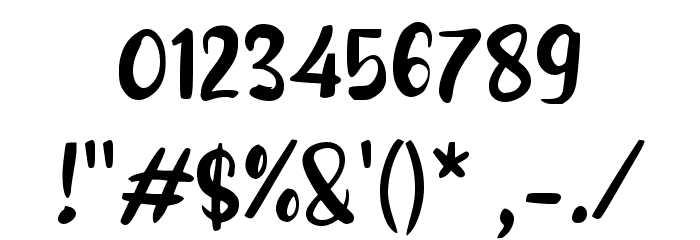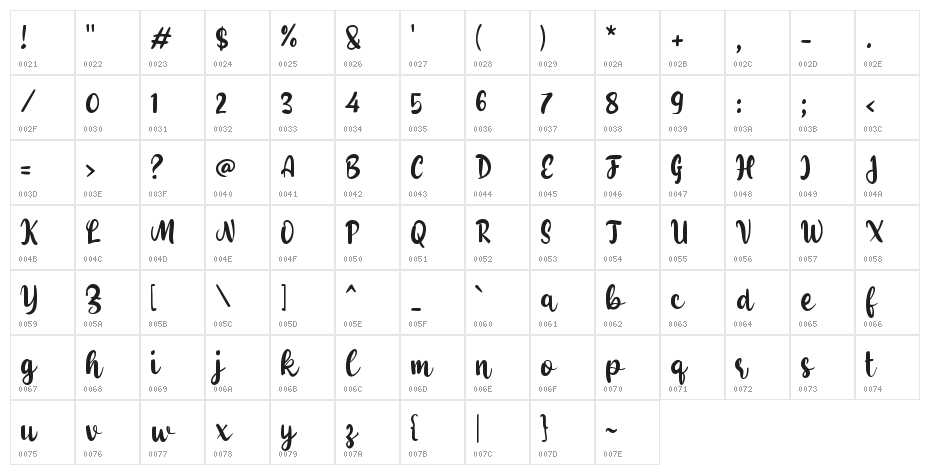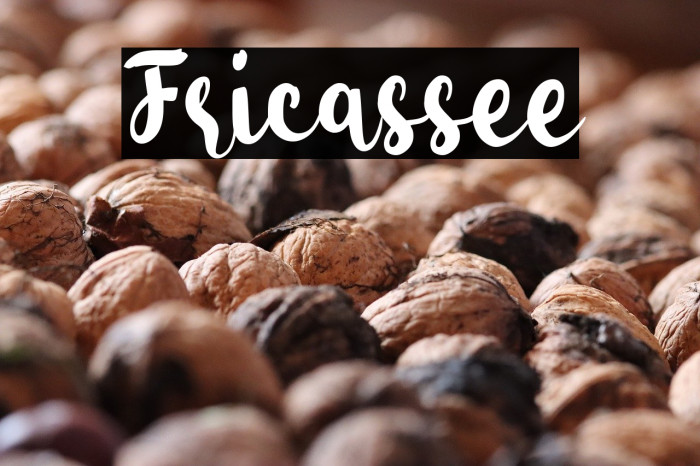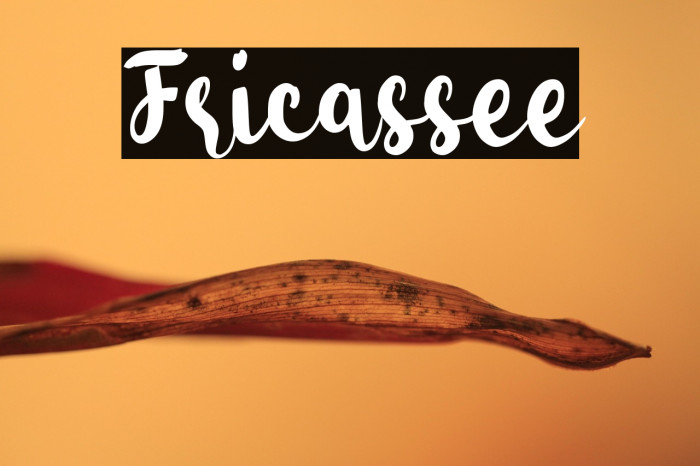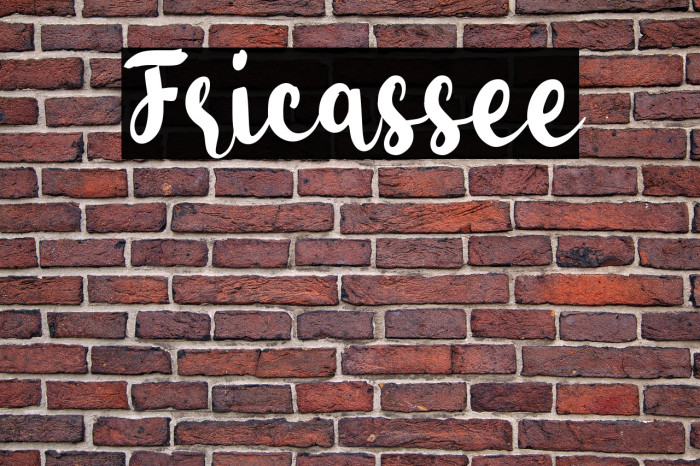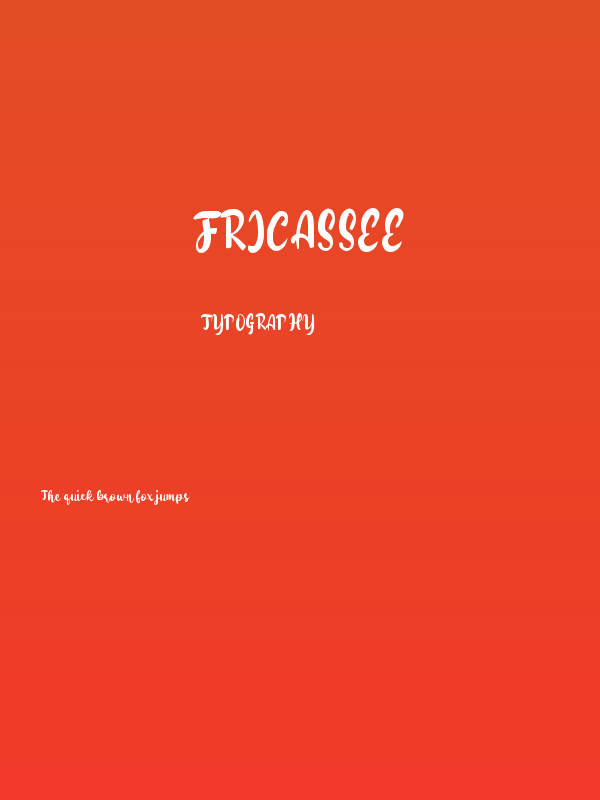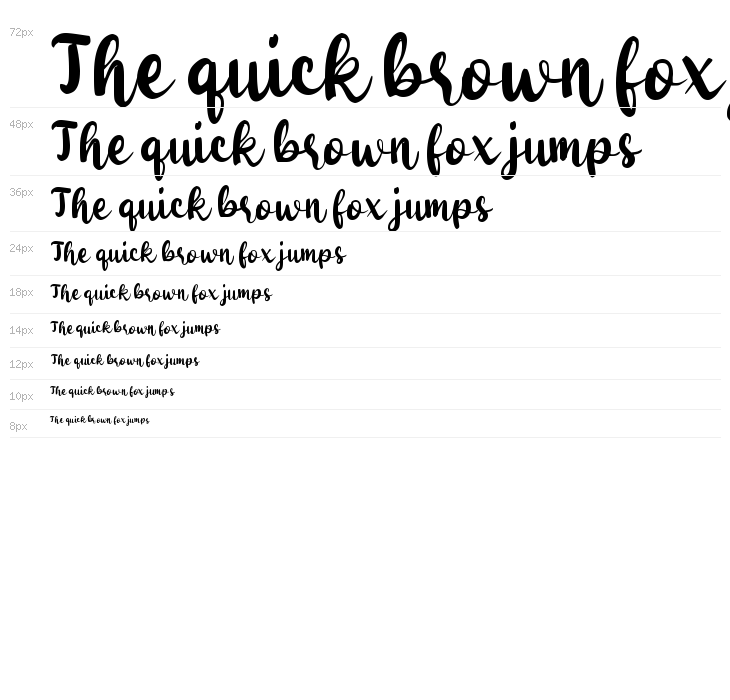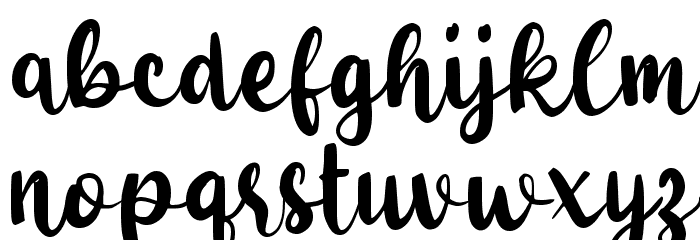
Fricassee Font
Fricassee Description
This font features a playful and energetic script style, characterized by its bold and flowing letterforms. The uppercase letters exhibit a consistent height with dynamic curves, while the lowercase letters maintain a cohesive rhythm with slightly exaggerated loops and swashes. The numerals are bold and rounded, complementing the overall style. Special characters are creatively integrated, maintaining the font's lively aesthetic. The font's design is suitable for projects that require a touch of whimsy and personality, making it ideal for creative branding, invitations, and playful headlines.